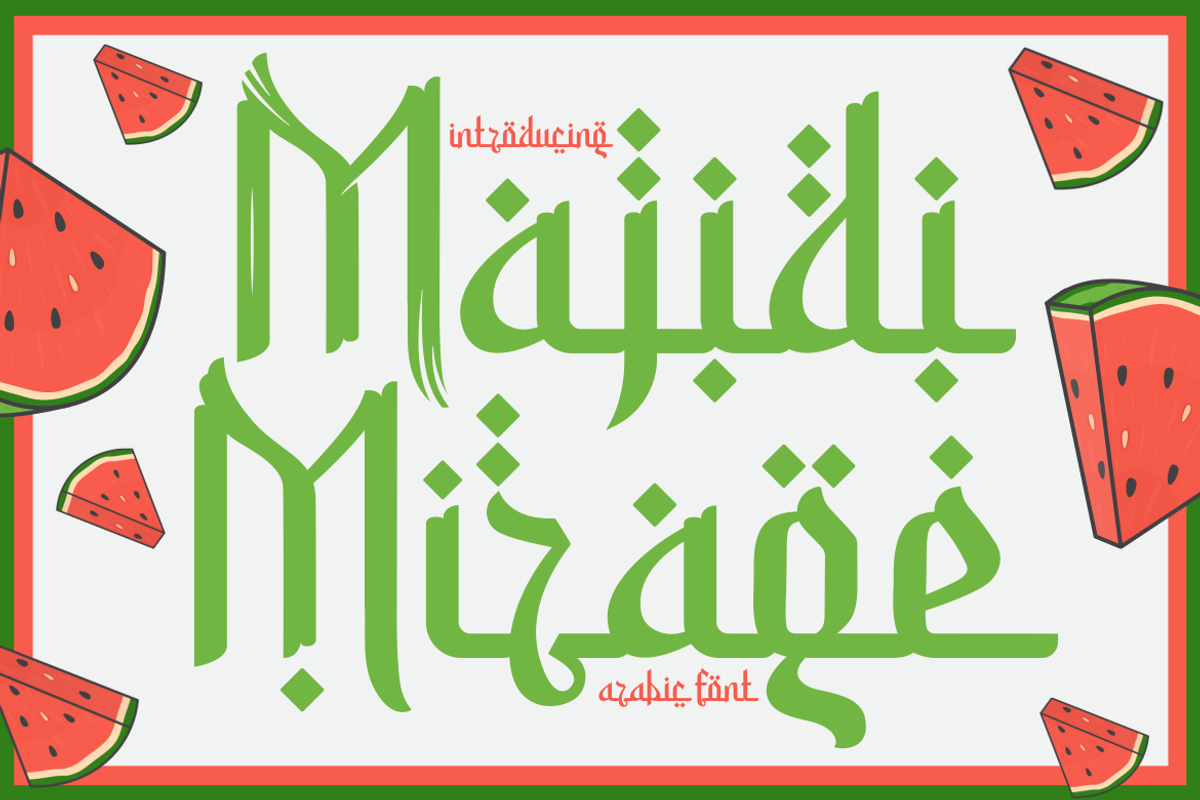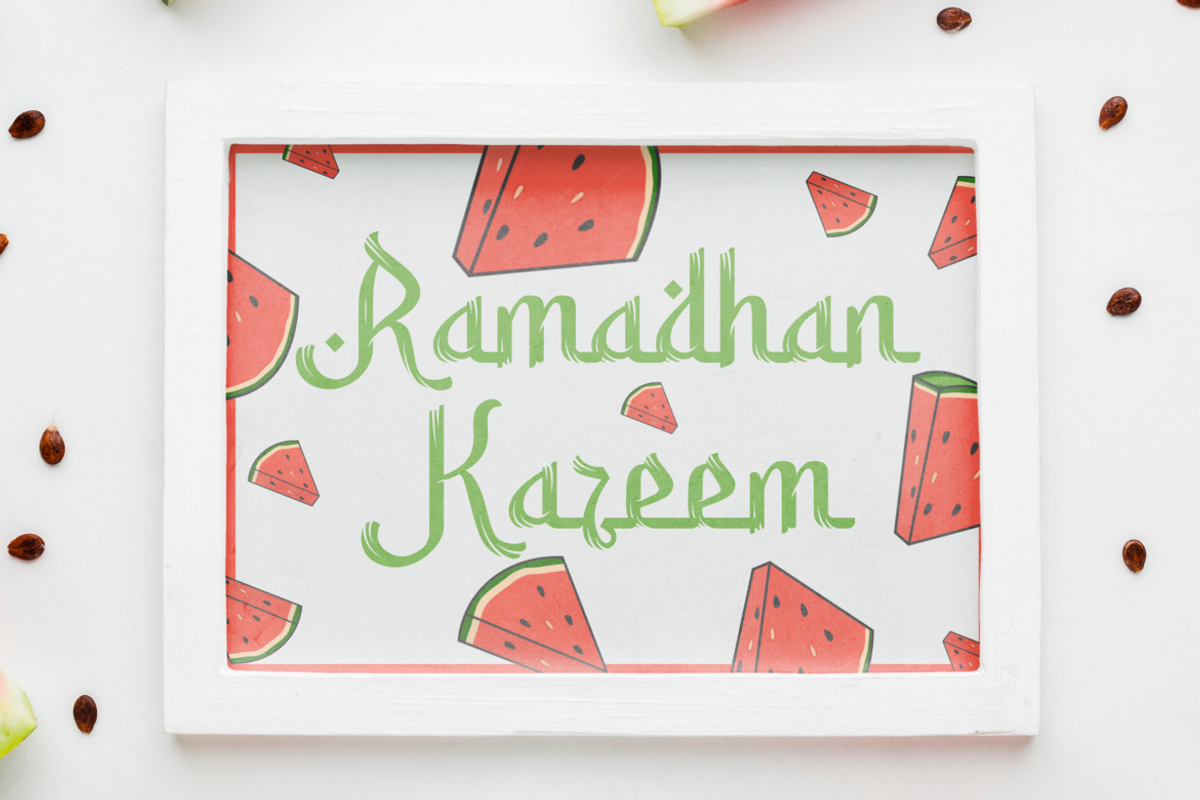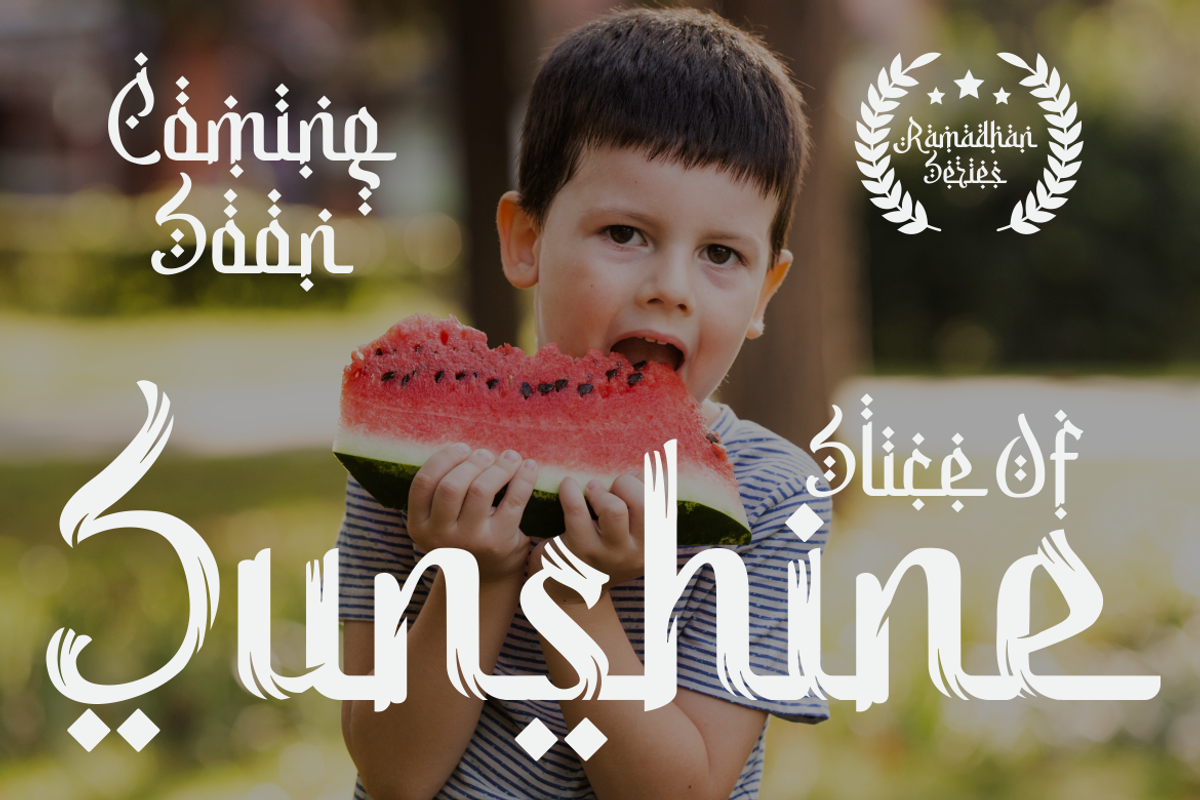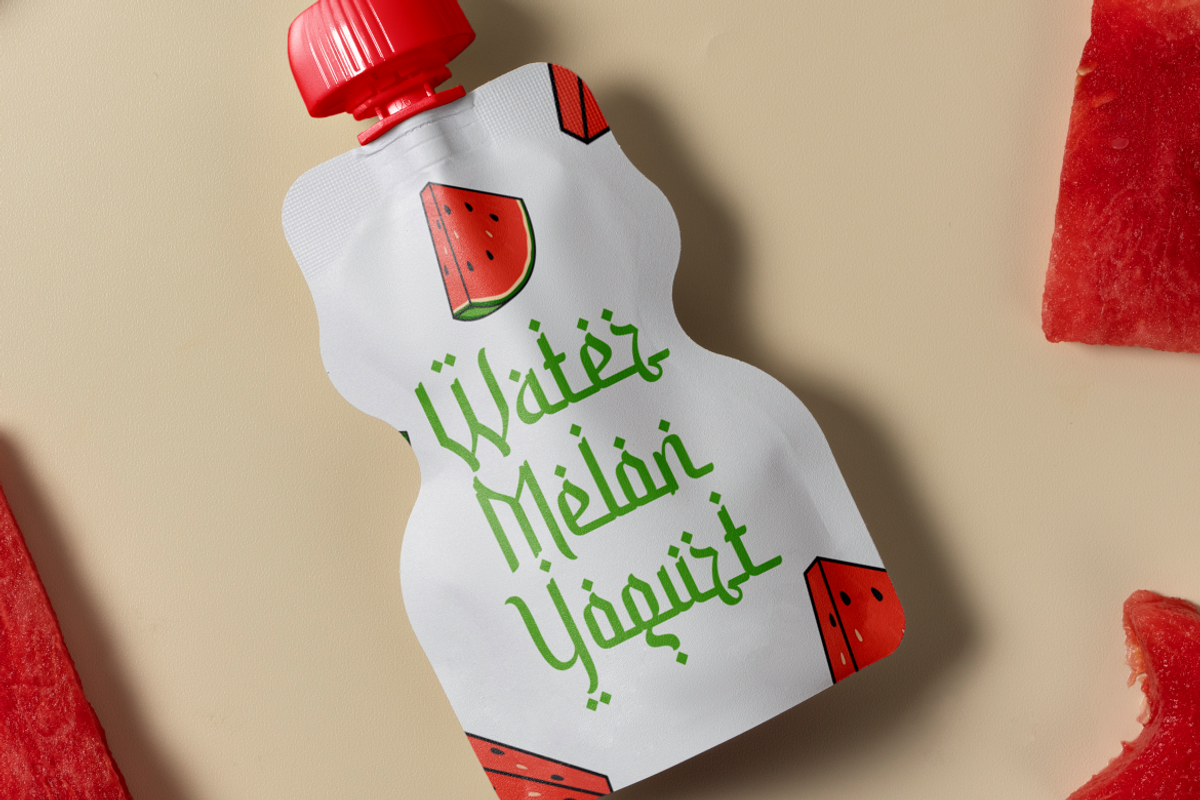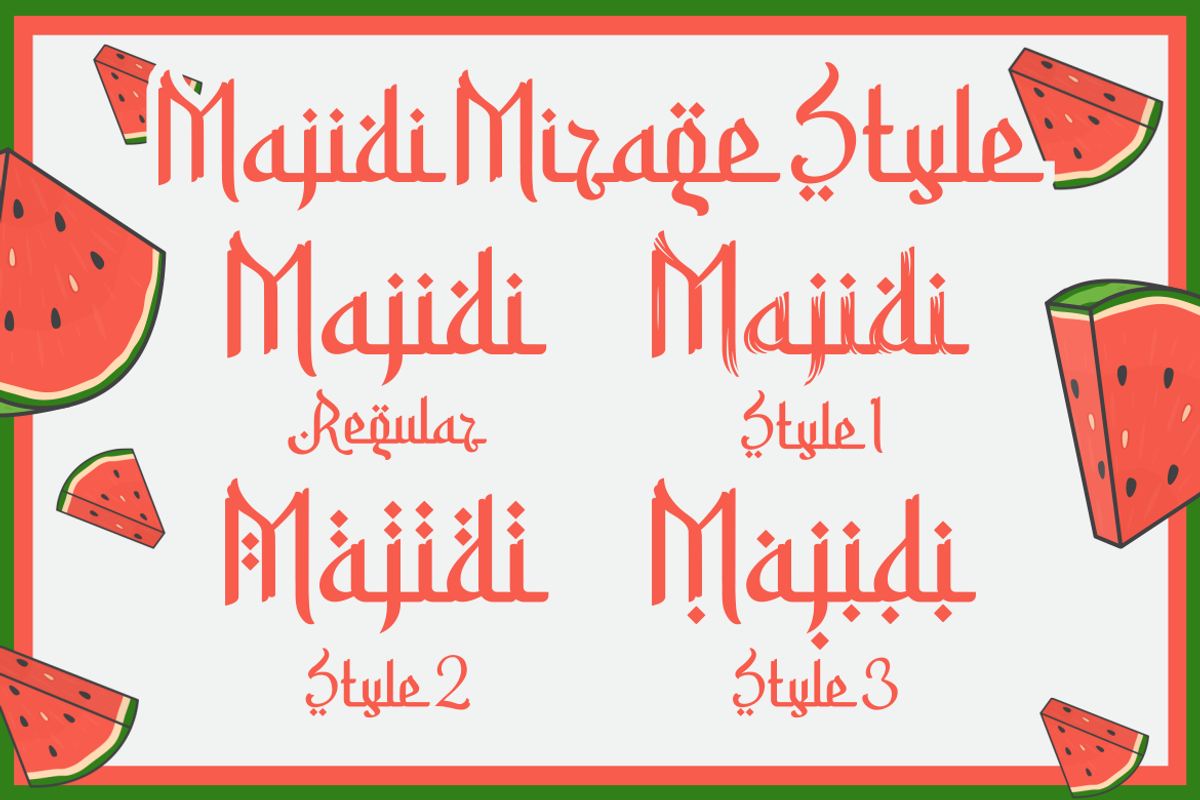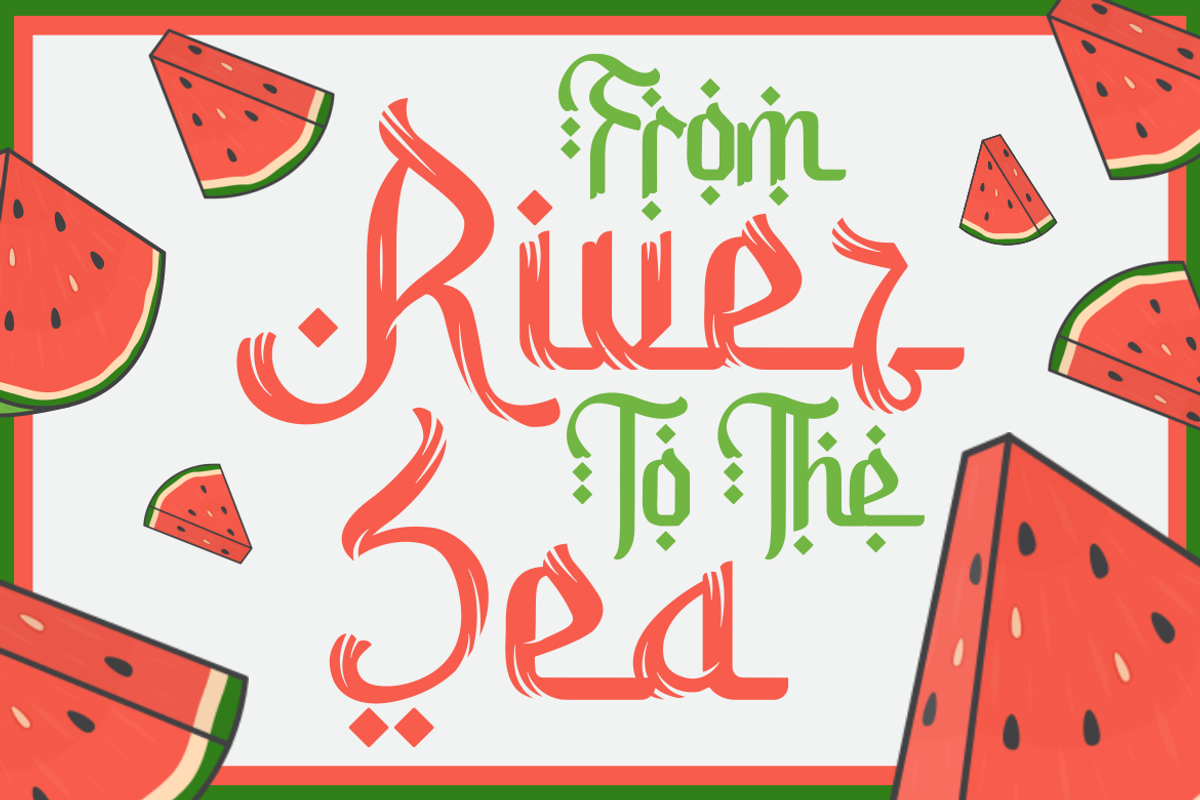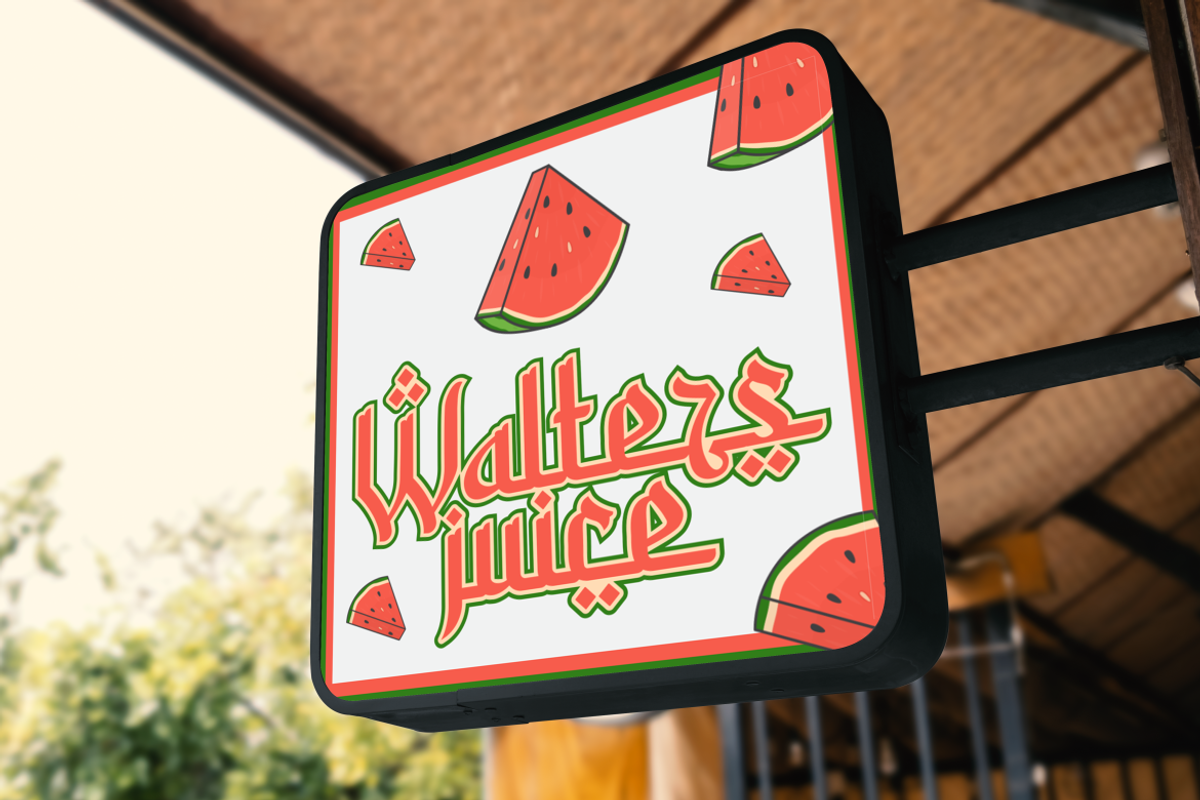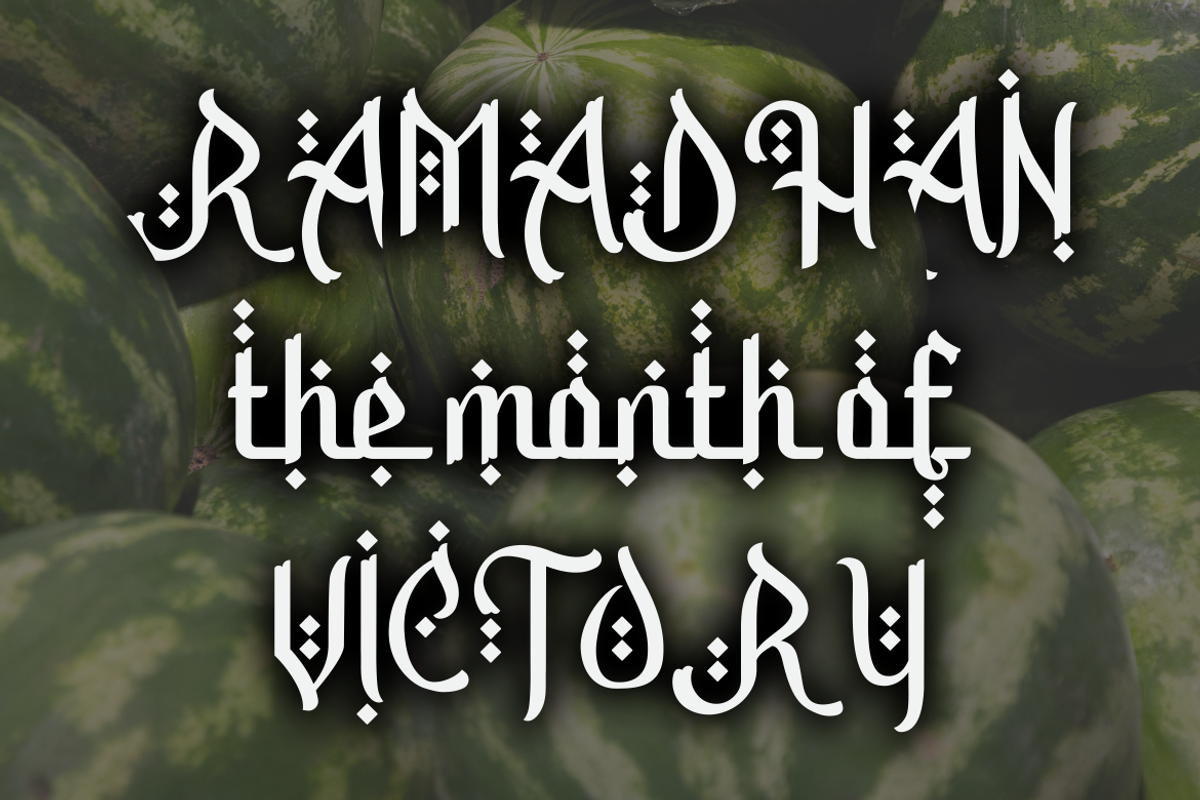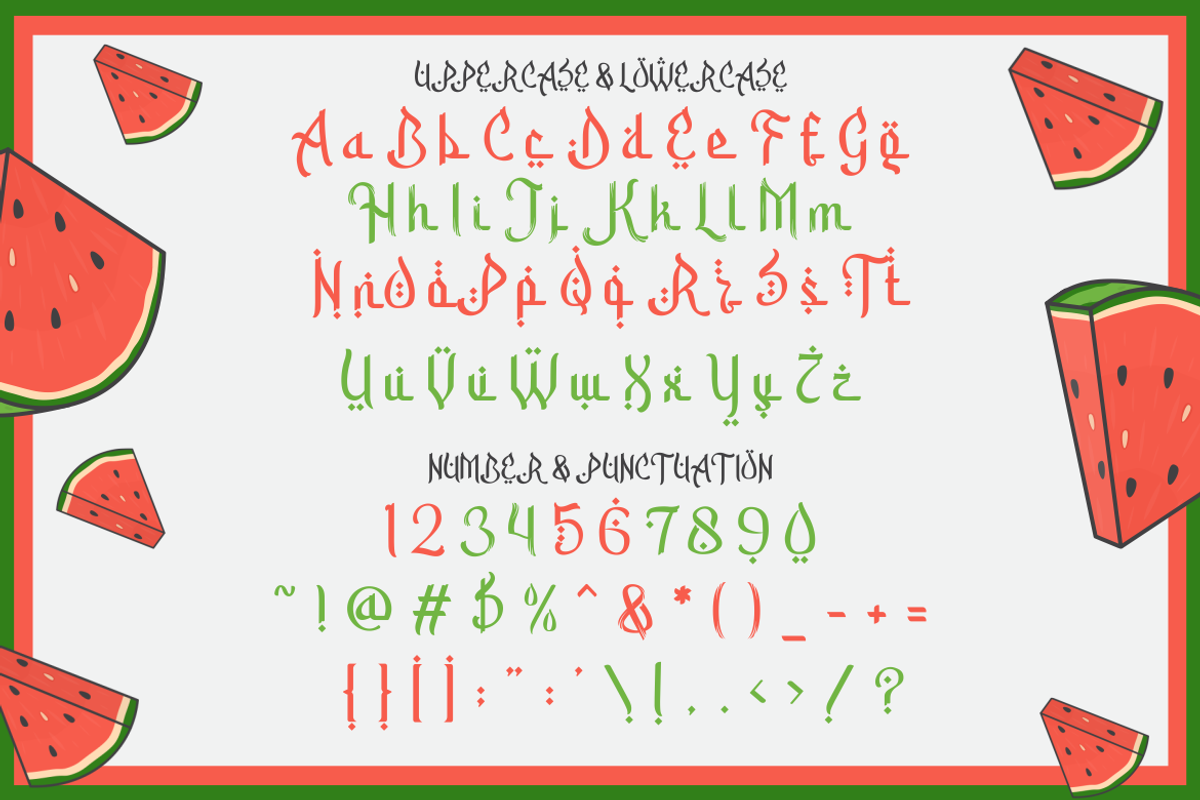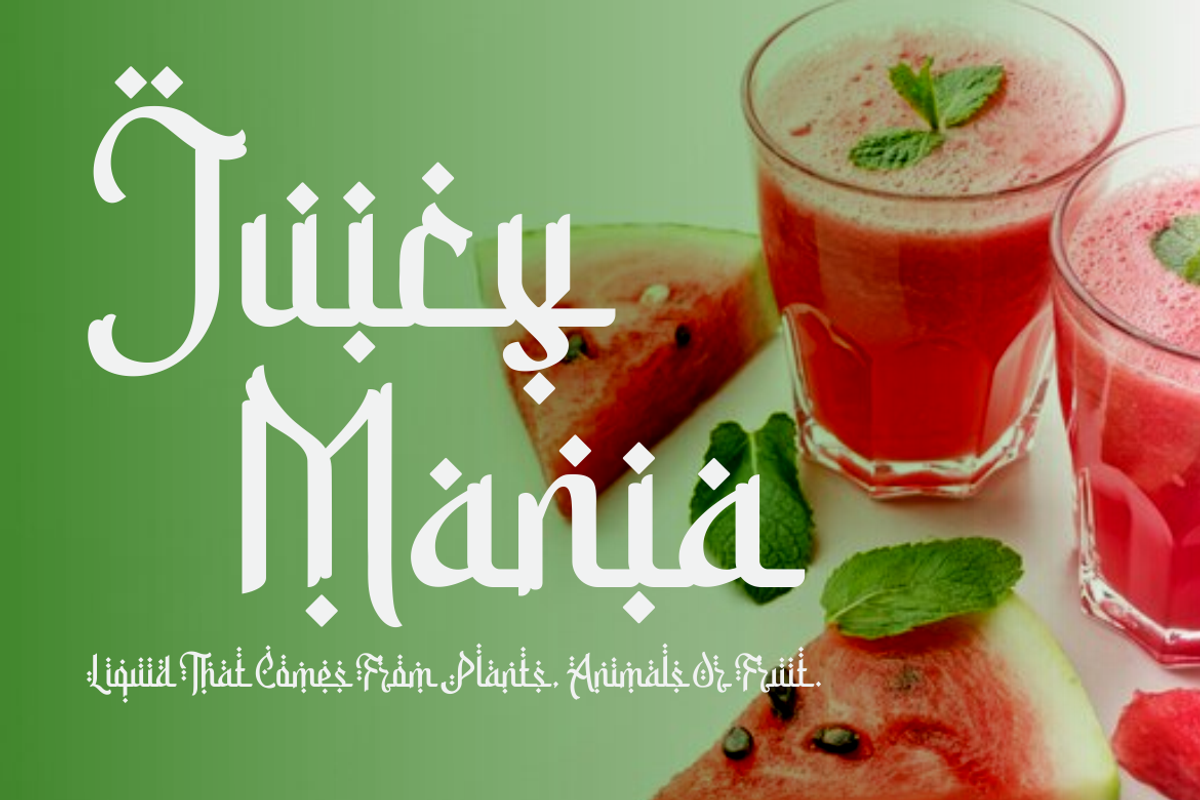
Majidi Mirage - Arabic Font
Step into the enchanting world of Arabic typography with Majidi Mirage - Arabic Font, a digital font that marries the timeless beauty of traditional Arabic calligraphy with the sleekness of modern design. This font is a celebration of cultural heritage, offering a contemporary twist that makes it perfect for a wide array of design applications. From logos that demand a touch of exotic elegance to branding that speaks volumes about sophistication, Majidi Mirage is the font that will set your designs apart.
Crafted with meticulous attention to detail, Majidi Mirage brings fluidity and grace to every word. Its characters are designed to flow seamlessly, making it an ideal choice for crafting, invitation cards, packaging, posters, and titles. The font’s versatility also extends to business communications, greeting cards, stickers, children’s books, and magazines, ensuring that your message is not just read, but felt and remembered.